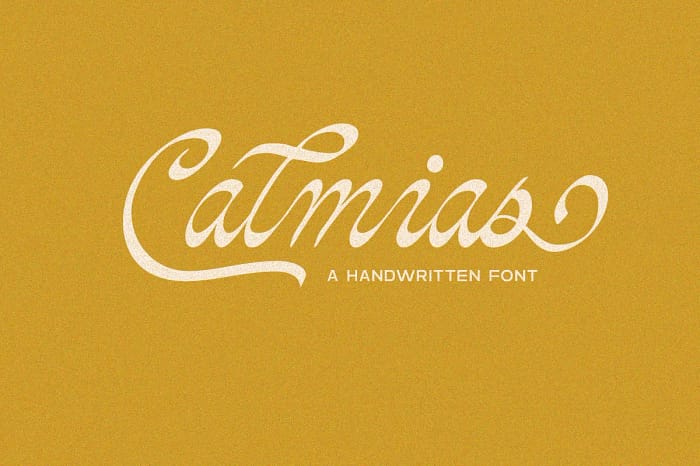
Introducing Calmias, an elegant calligraphy script font that embodies grace and sophistication. Perfect for those who appreciate the art of fine handwriting, Calmias brings a touch of timeless beauty to your designs.
With its flowing lines and delicate curves, Calmias captures the essence of traditional calligraphy while offering the versatility needed for modern design projects. Ideal for wedding invitations, luxurious branding, elegant stationery, and heartfelt quotes, Calmias adds a personal and refined touch to any creation.